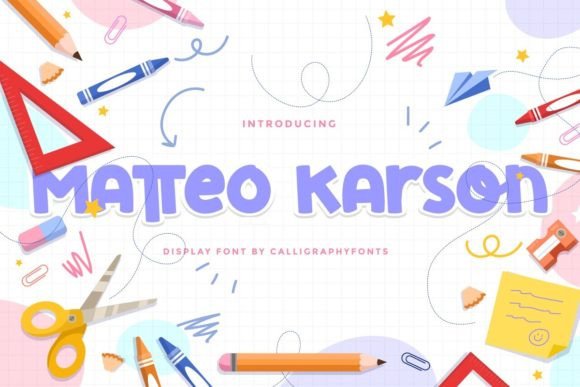
Matteo Karson Font
Introducing **Matteo Karson**, the captivating display font that's sure to make your creations pop! This charming and stylish typeface brings a touch of playfulness to any design, making it the perfect choice for:
🌟 **Eye-catching Book Titles:** Create titles that leap off the page and entice readers with Matteo Karson's playful curves and energetic style.
🌟 **Memorable Logos:** Design logos that leave a lasting impression, with Matteo Karson's unique letterforms and charismatic personality.
🌟 **Enticing Branding:** Elevate your brand to new heights with Matteo Karson's charming and unforgettable style.
🌟 **Appealing Merchandise:** Create t-shirts, mugs, and other merchandise that stand out from the crowd with Matteo Karson's playful and eye-catching design.
🌟 **Engaging Websites:** Design websites that capture attention and captivate visitors with Matteo Karson's distinctive and visually appealing style.
Matteo Karson is more than just a font; it's a creative companion that will add a touch of magic to your design projects. Crafted by the creative minds at CalligraphyFonts, this font embodies the joy of expression and the power of play.